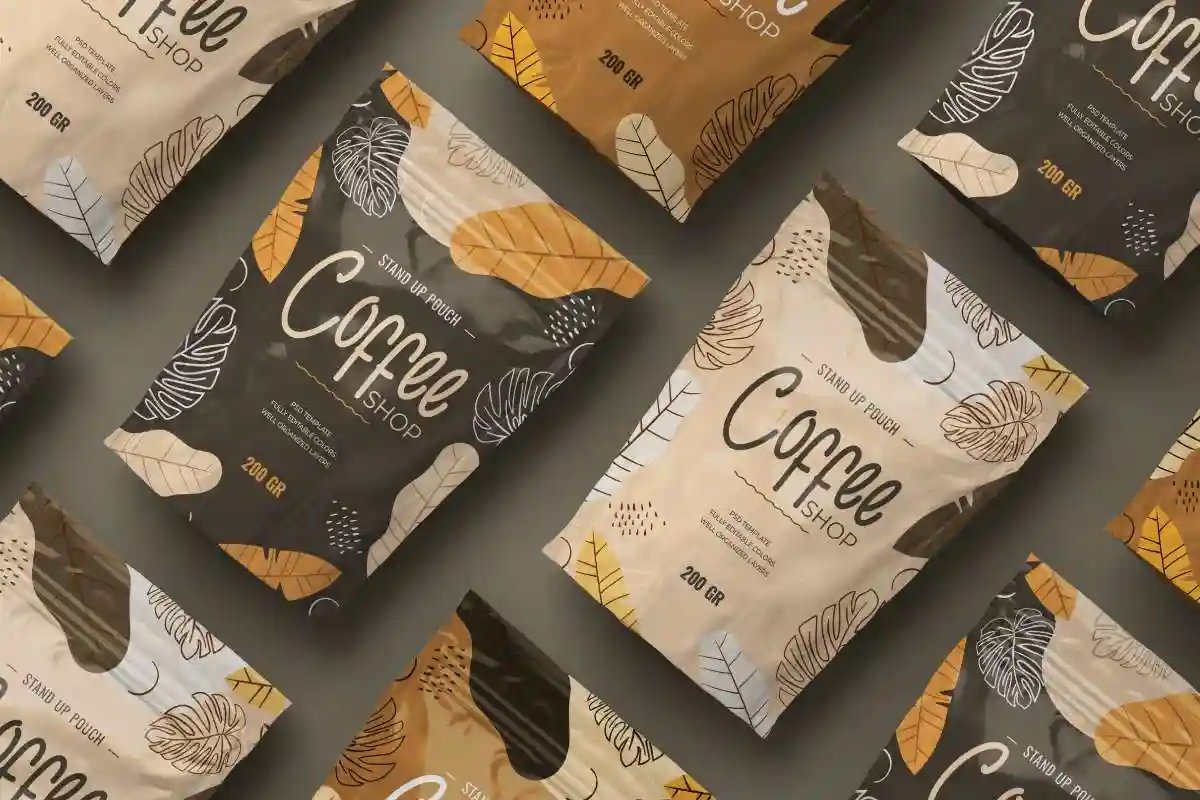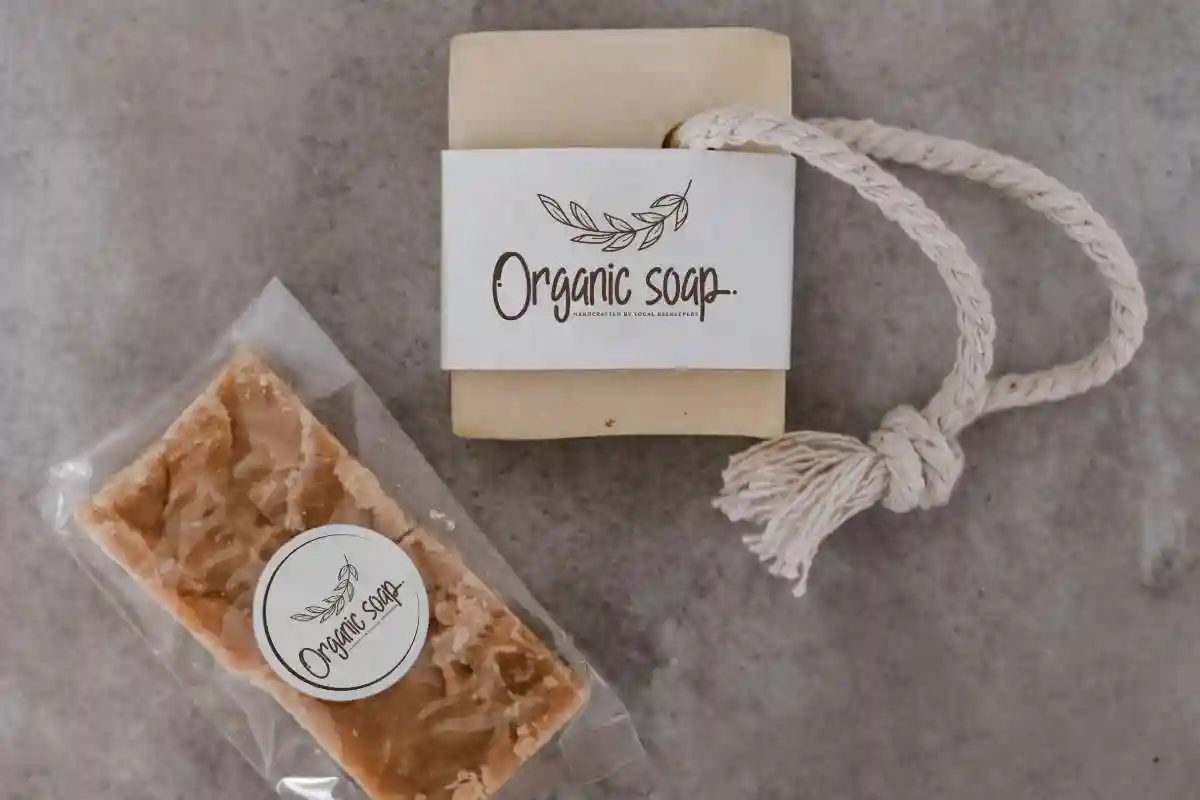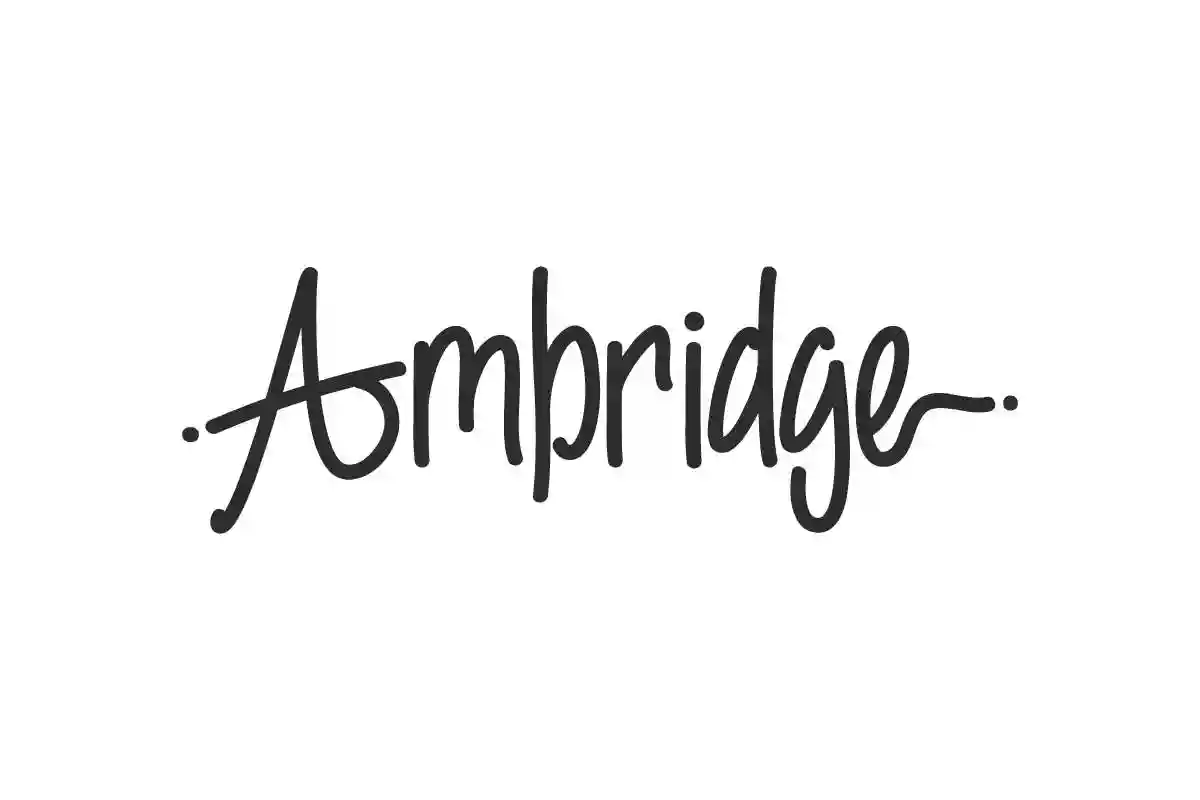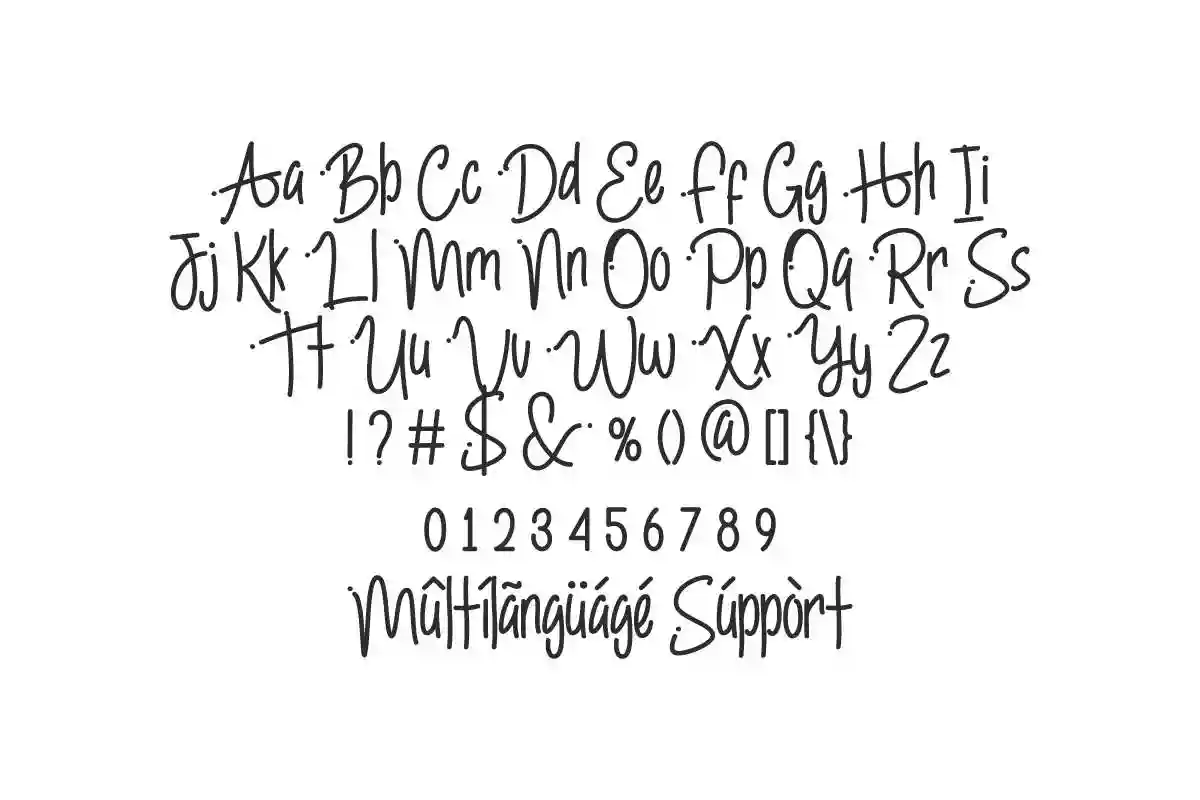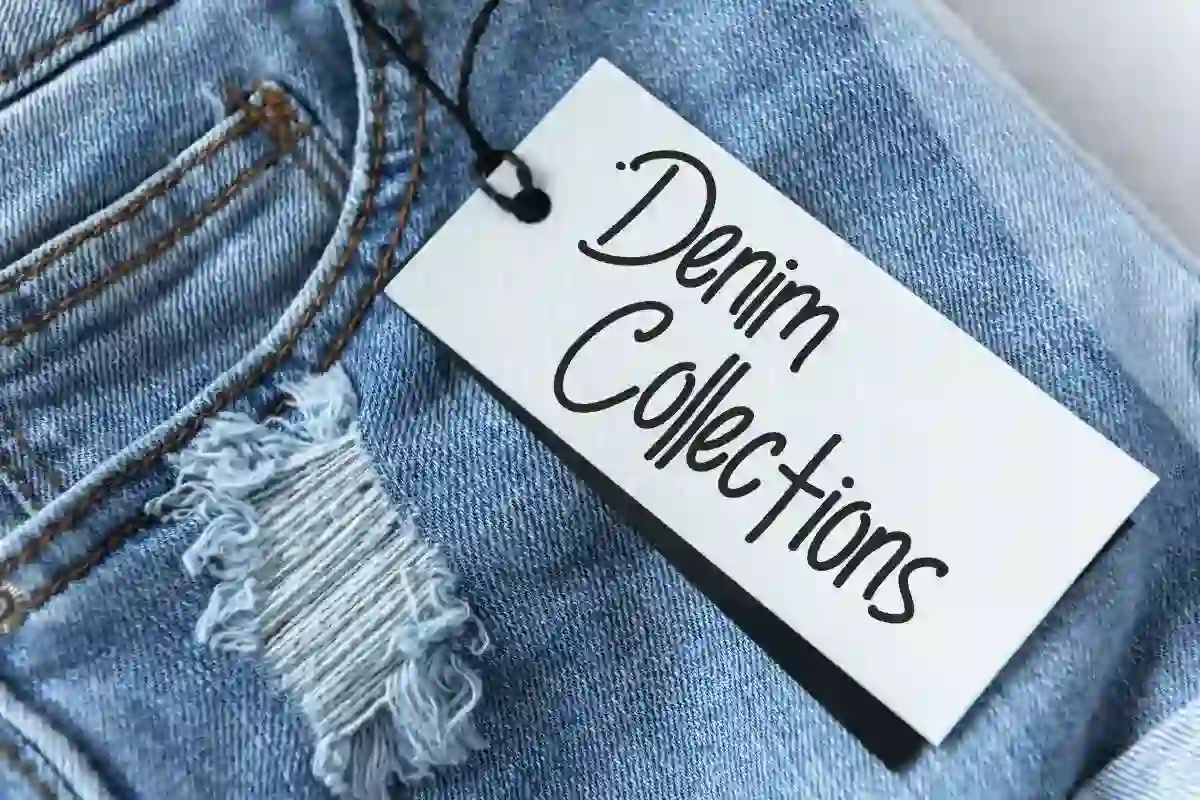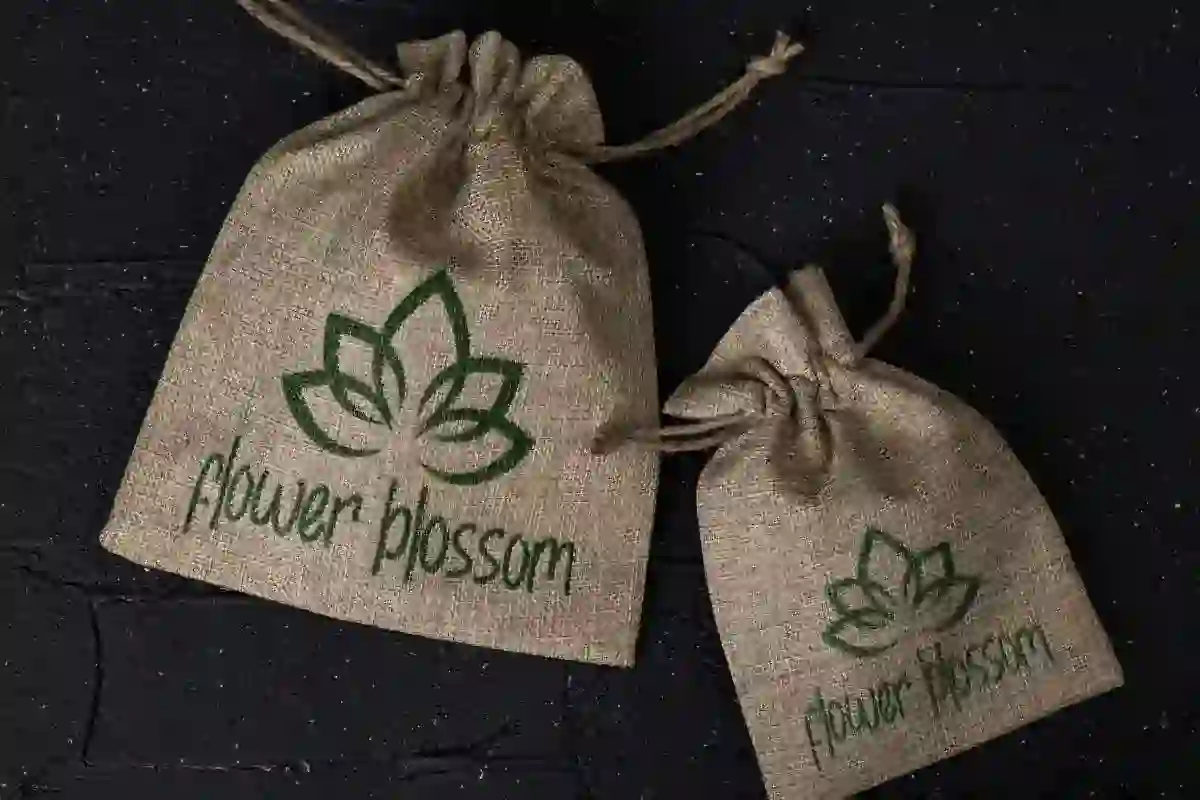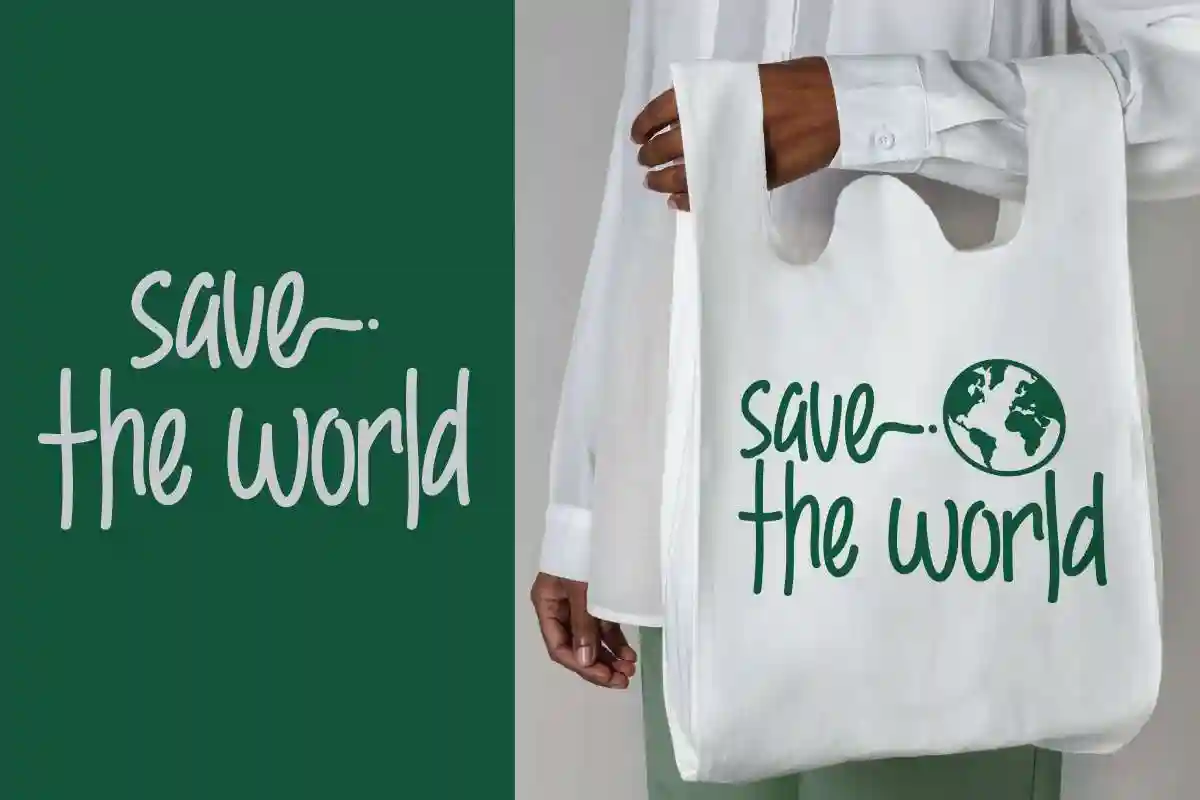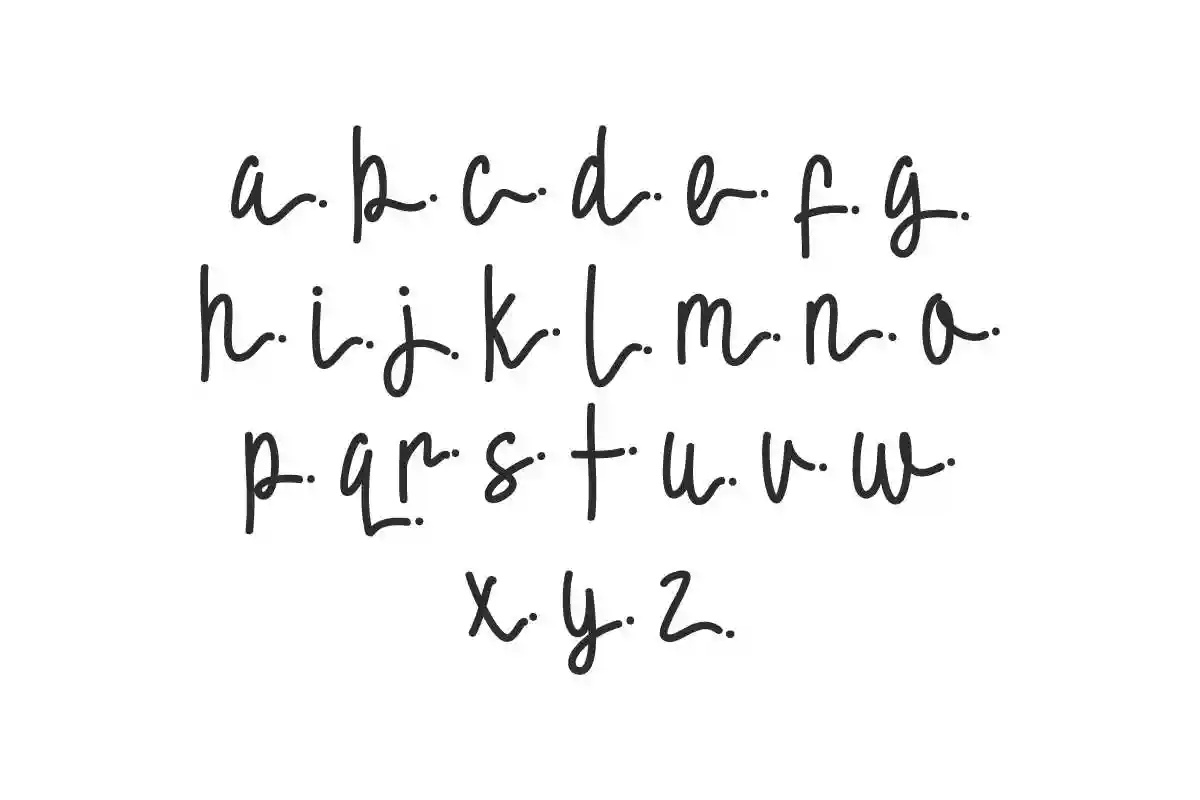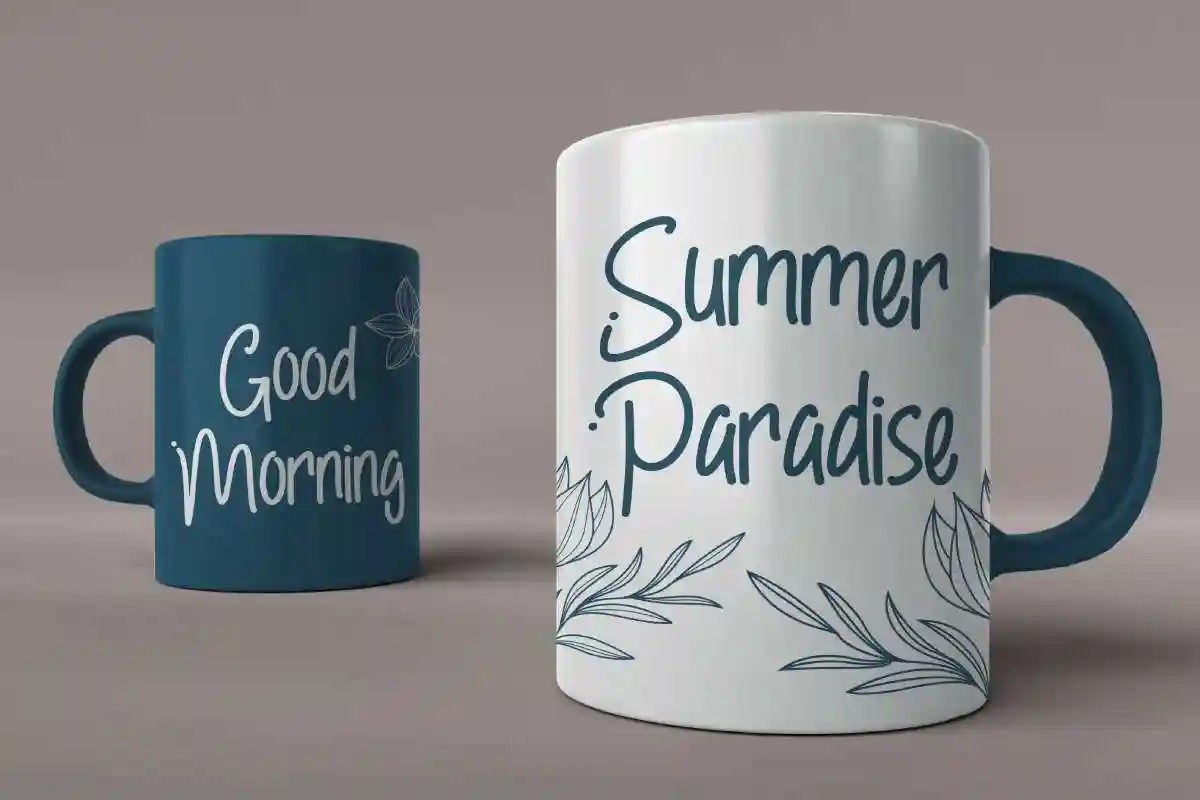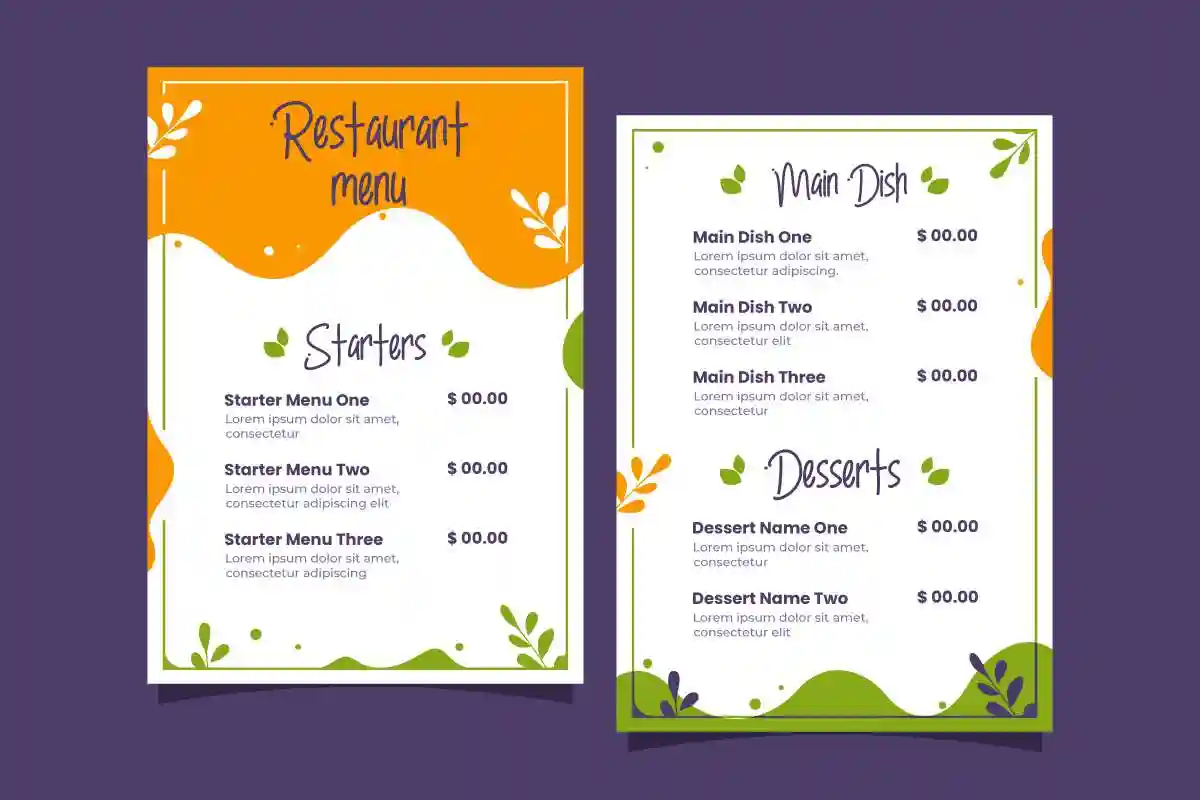
Ambridge Font is a monoline handwriting font. Made in Indonesia, great for logo branding, menu sheet, packaging products, title etc
Ambridge Font was originally made in 2021, this font has a monoline brush with alternates which makes it simple and stylish. On the package you will get :
Ambridge Font will be great for any projects (require extended license) including : branding, decorative text, headline, signage, etc. The theme style of the font is minimalist, stylish and unique handwriting style. The industries/businesses that will be match for this typeface: clothing, cosmetic, entertainment, houseware, school, etc